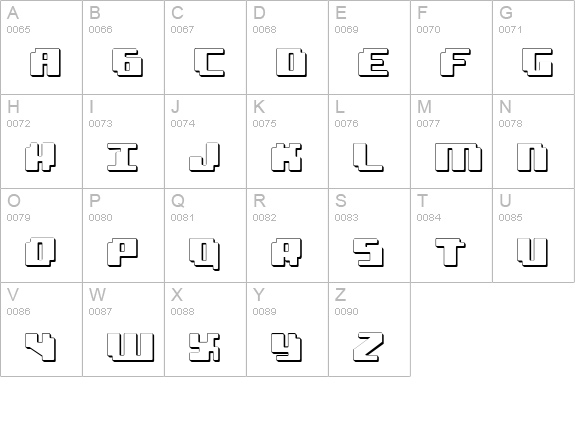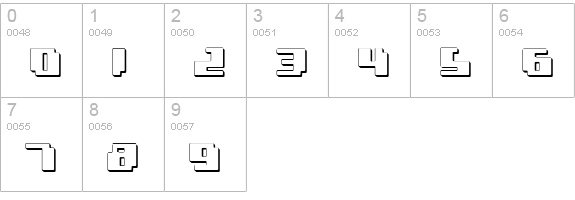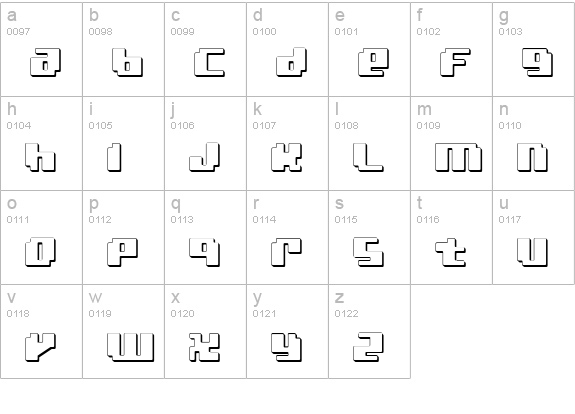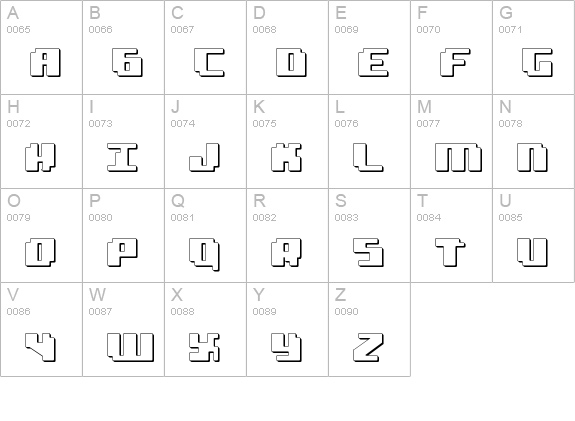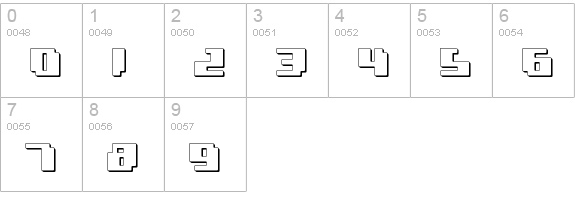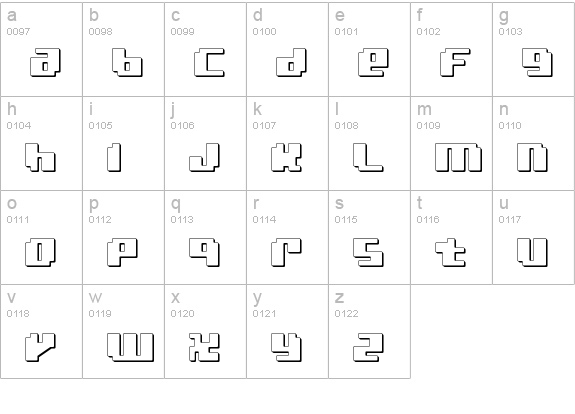
bad robot 3d Font Details
Introducing the captivating Bad Robot 3D font, a cutting-edge and futuristic typeface that will bring a robotic charm to your design projects. This font features sharp angles and intricate details that give it a modern and edgy look. With its three-dimensional appearance, Bad Robot 3D font adds depth and dimension to text, making it stand out in any creative composition. What's even better is that this remarkable font is available for free download at FontsMarket.com. Whether you're working on a sci-fi themed poster, a tech-inspired logo, or a high-tech website design, Bad Robot 3D font is sure to make a bold statement. Embrace the future of typography with this unique and dynamic font that is sure to impress. Download it now and let your creativity soar with Bad Robot 3D!